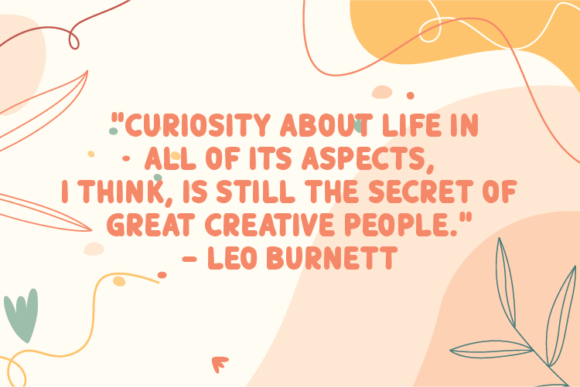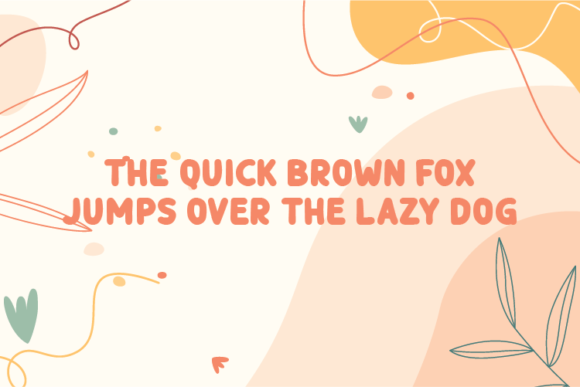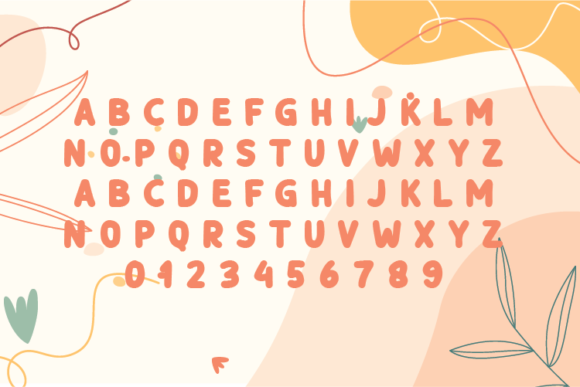
Handmade, a natural handwritten font, boasts a distinctive quality by preserving each character’s original indentation without altering a single node. This unique feature adds an interesting and authentic touch to the font, making it an excellent choice for a variety of creative applications.
The natural and handmade feel of this font brings an organic and personal touch to your text. Handmade is particularly well-suited for quotes, notes, and tees, where its authentic and unprocessed style can enhance the overall visual appeal of the content. The preserved character indentation contributes to the font’s uniqueness, creating an engaging and authentic aesthetic.
The versatility of Handmade extends to product designs, making it suitable for packaging, labels, and various other design projects that call for a natural and handmade look. Its engaging and distinctive style can add a touch of charm and character to your product designs, making them stand out with a genuine and unique flair.
In essence, Handmade is more than just a font; it’s an expression of natural, handwritten charm. The font’s unique feature of retaining character indentation sets it apart, offering an interesting and authentic quality that elevates your projects. Let Handmade be the choice that infuses your designs with a delightful and genuine handmade touch, perfect for quotes, notes, tees, and a variety of product designs.